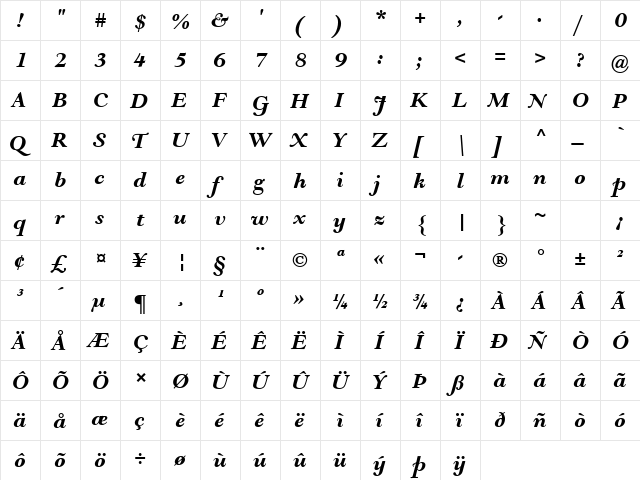
Goudy Modern MT Bold Italic
Design Context for Goudy Modern MT Typeface
Goudy Modern MT is a composed and adaptable typeface that performs quietly and consistently across a wide range of design contexts. The slanted form adds forward momentum and visual energy. The heavy weight commands attention and anchors typographic hierarchies.
Pro Tip: Try Goudy Modern MT for annotation and caption copy alongside an upright companion — the contrast in angle creates a dynamic but ordered typographic system.